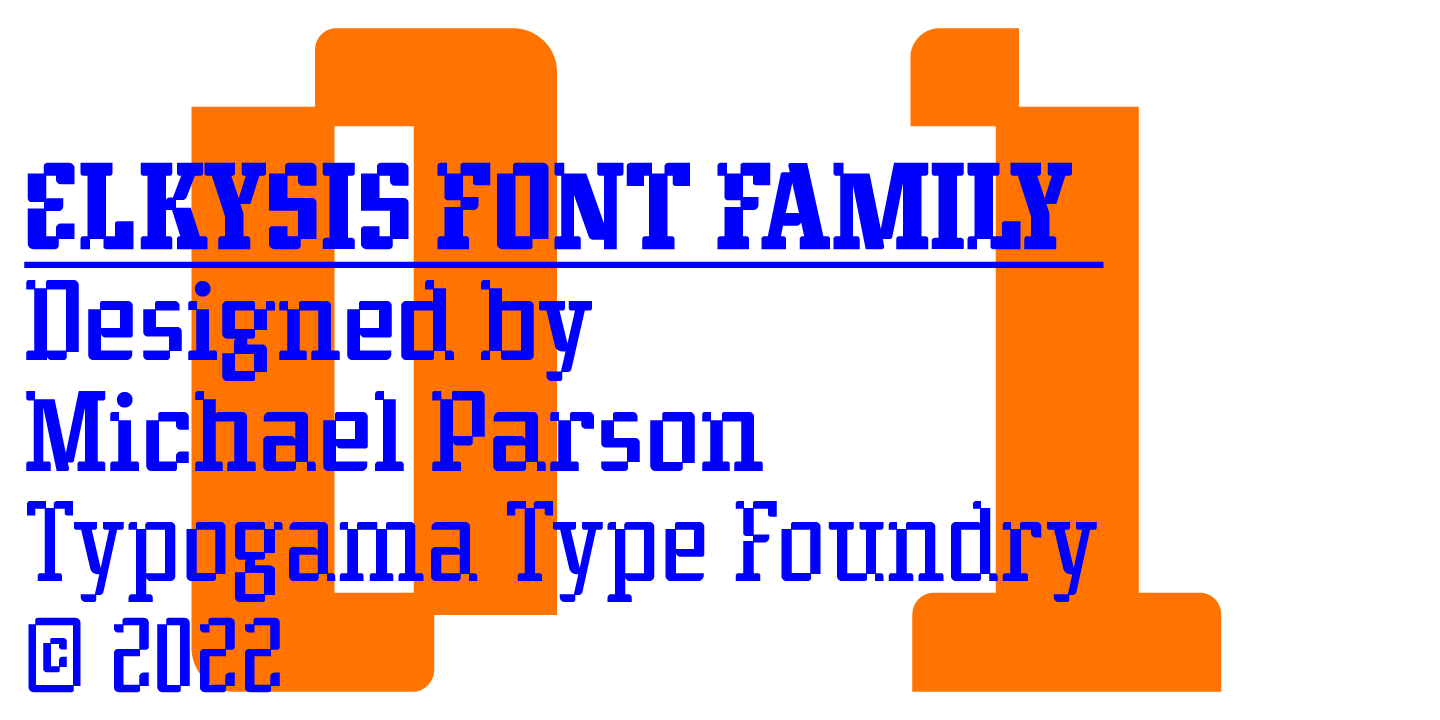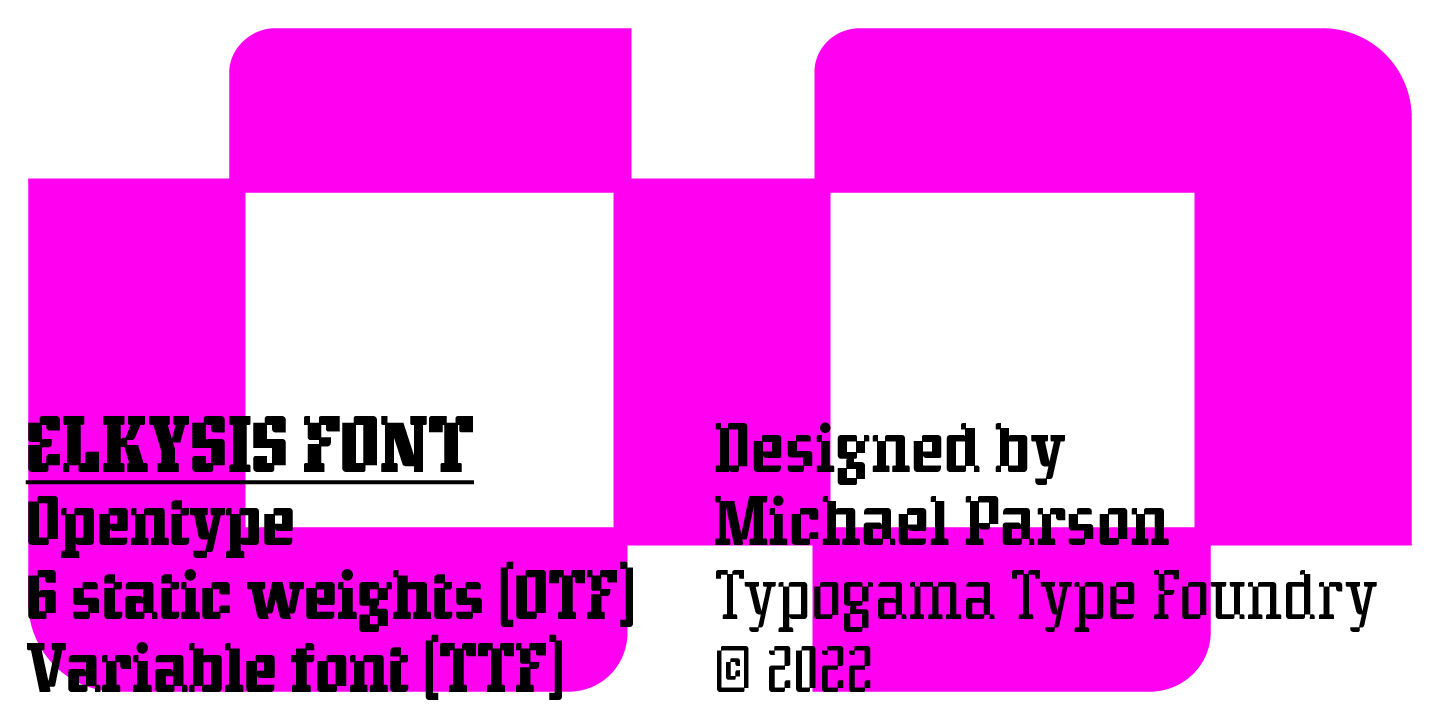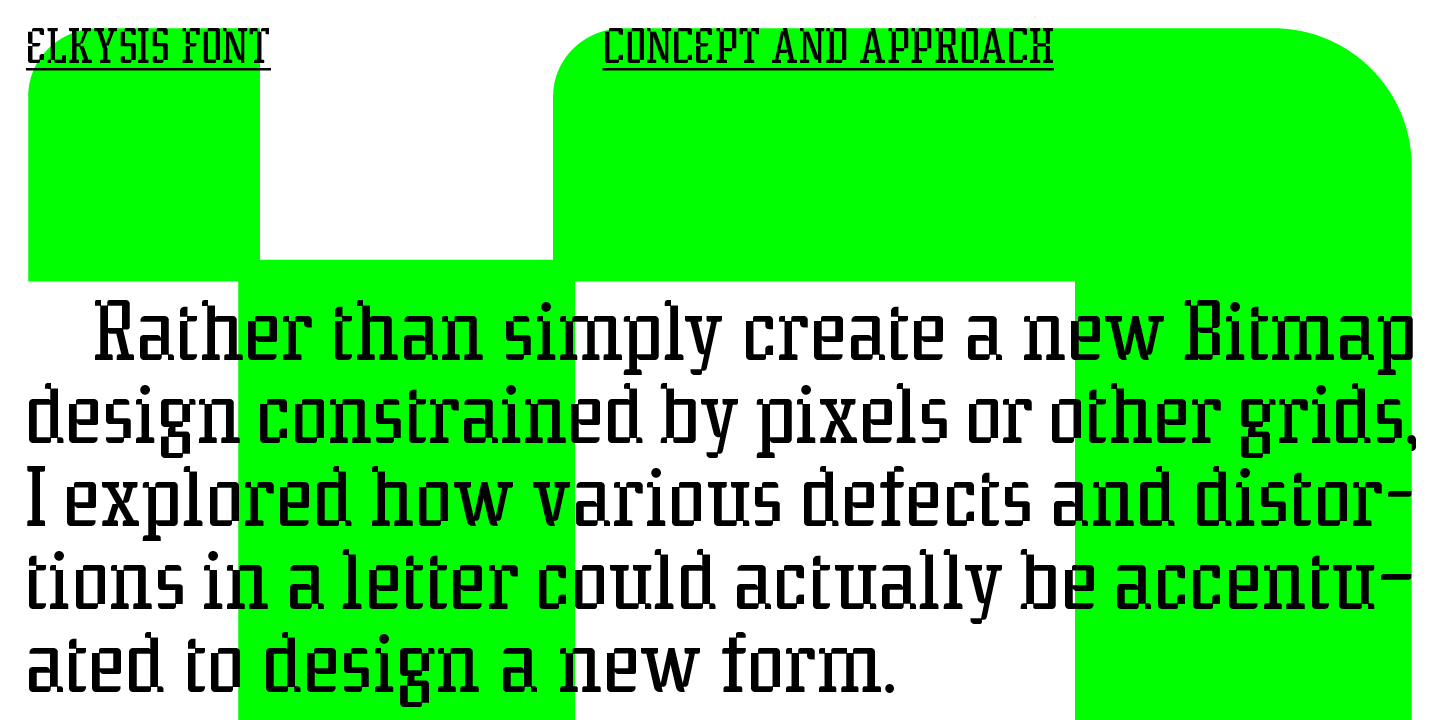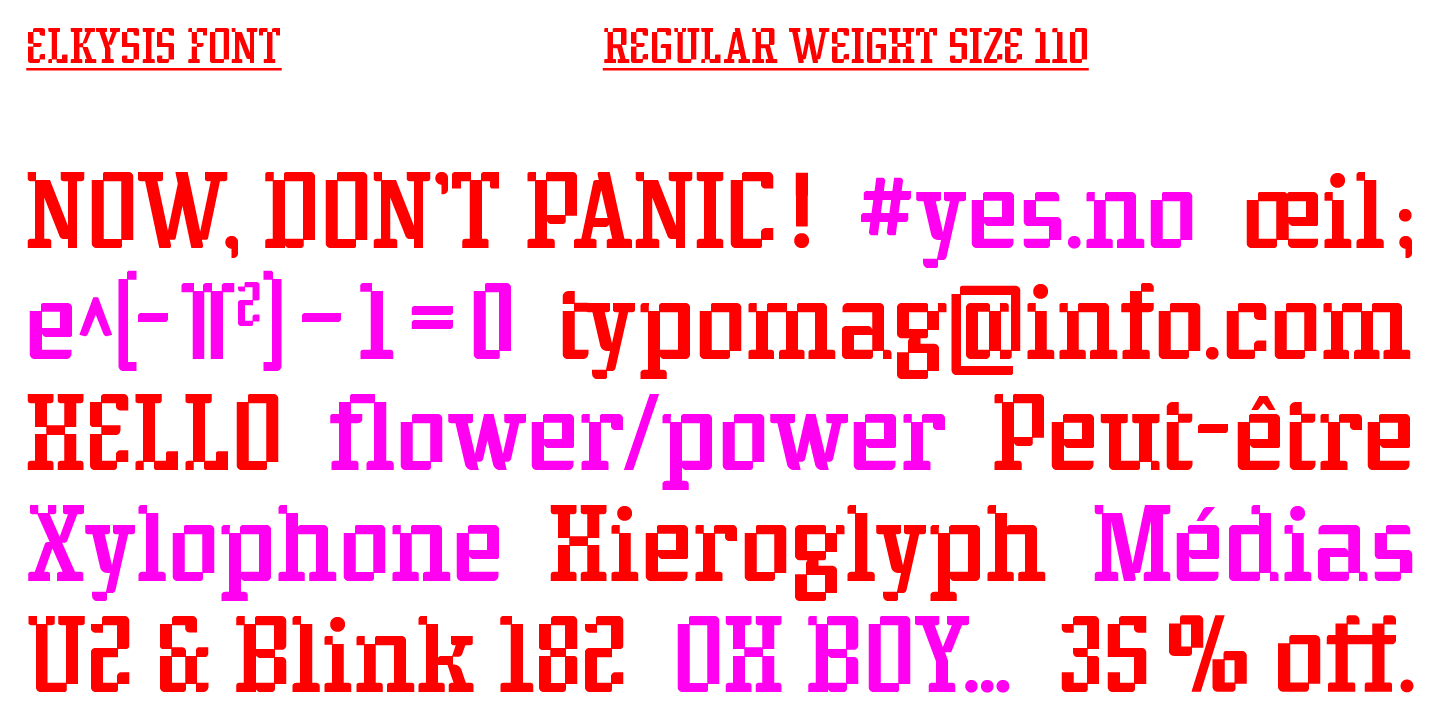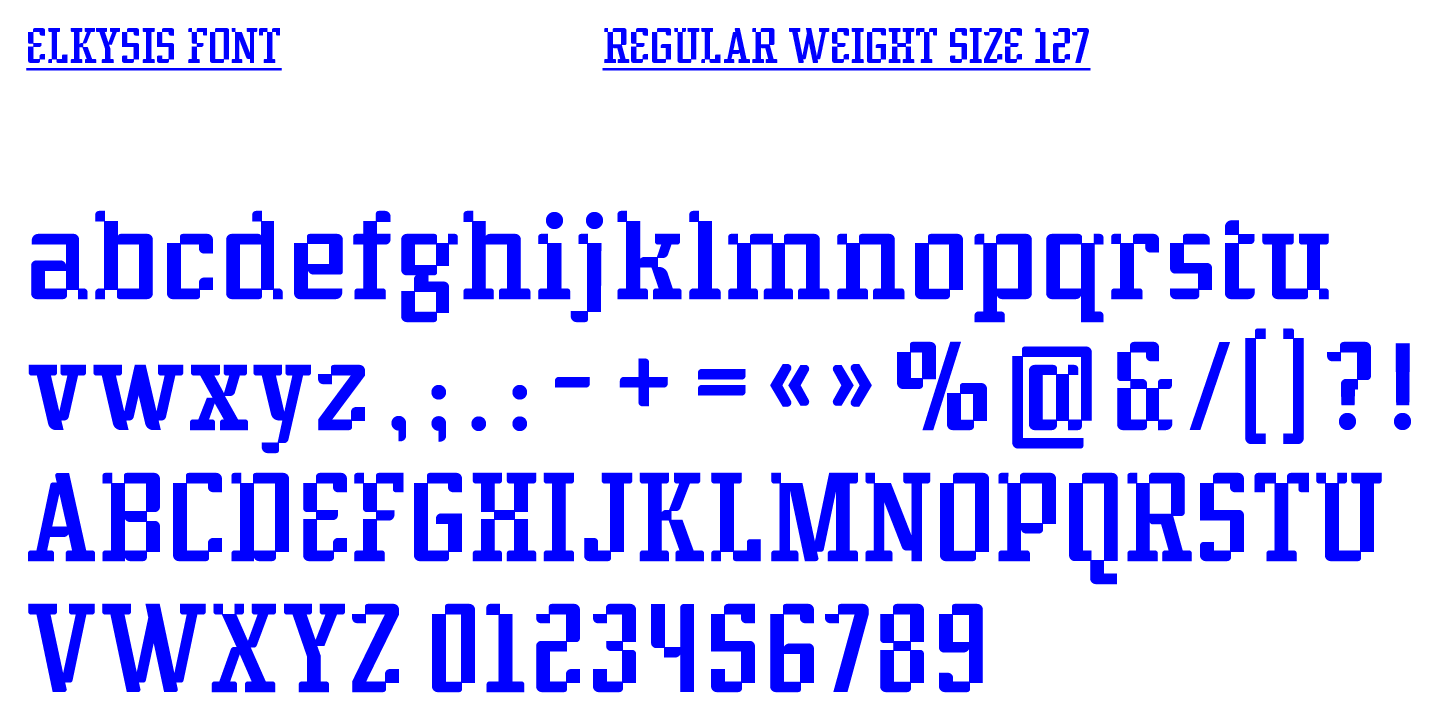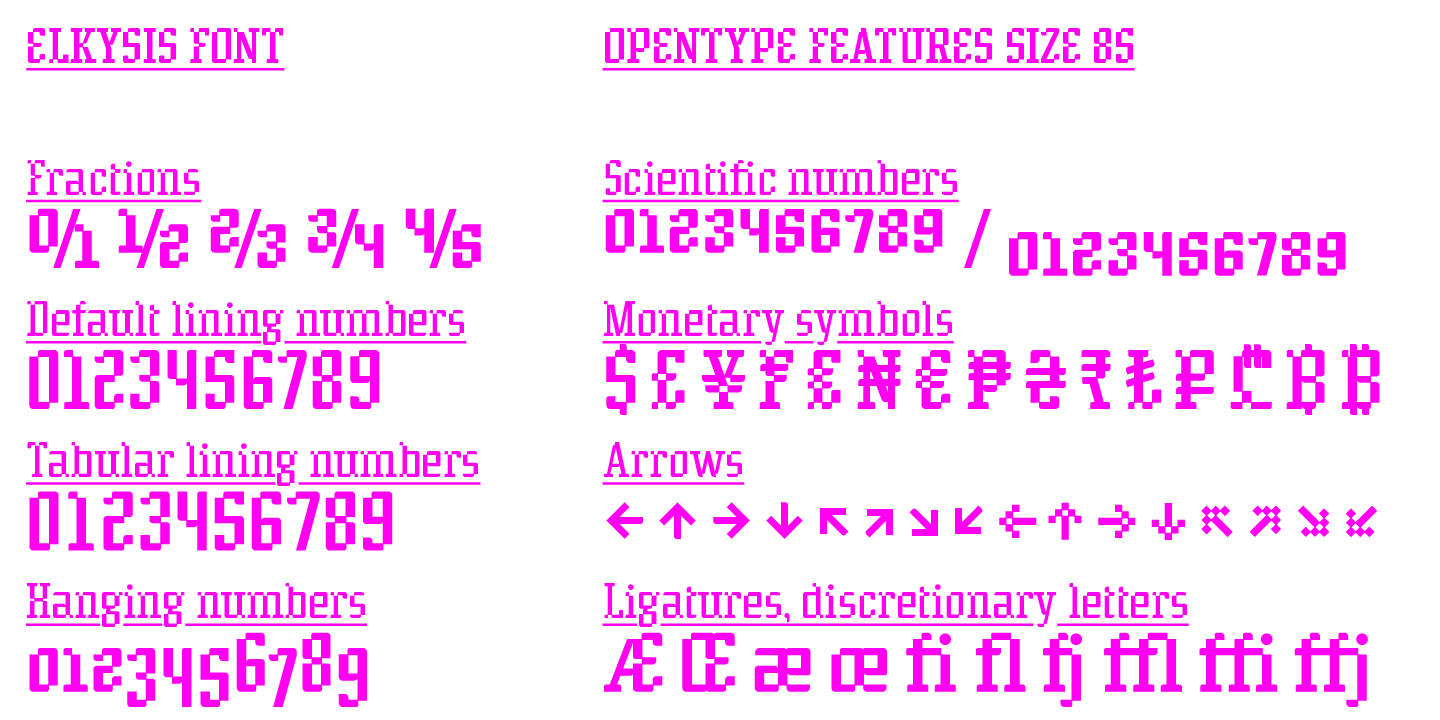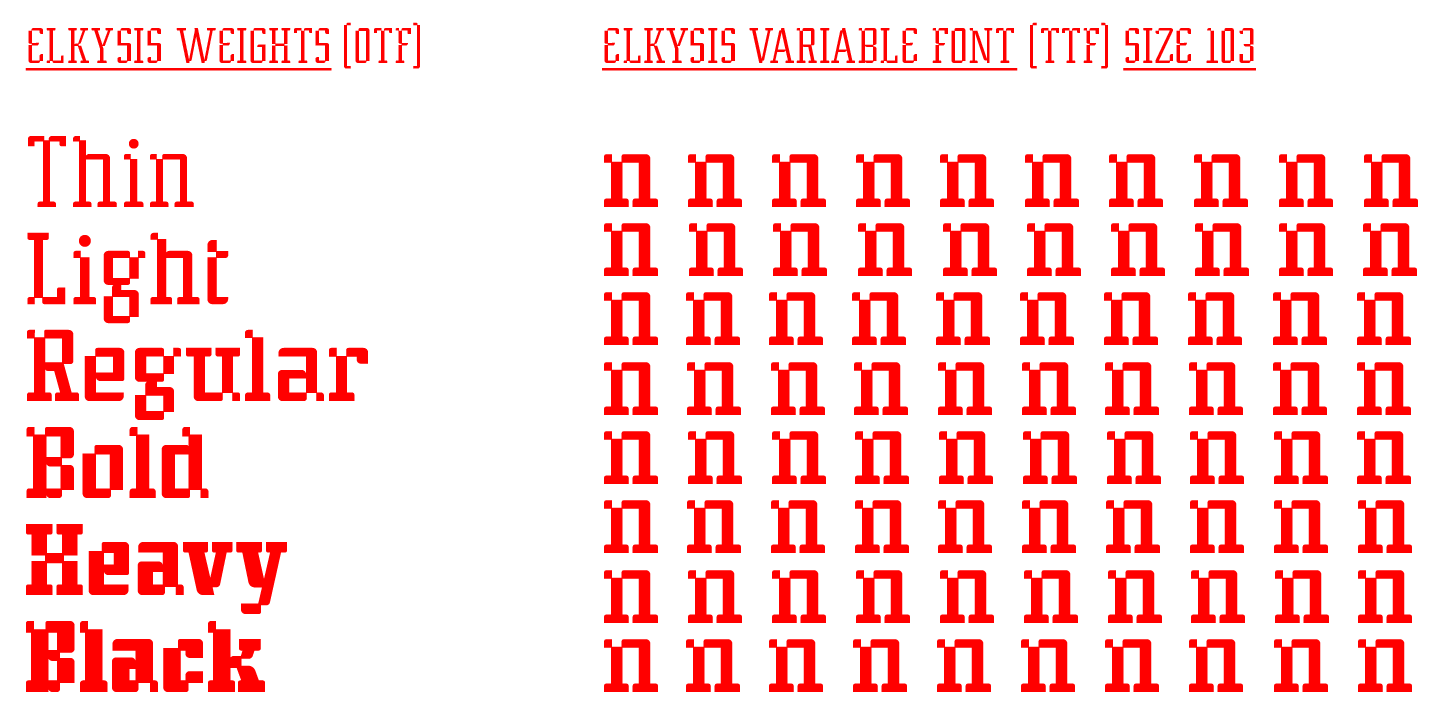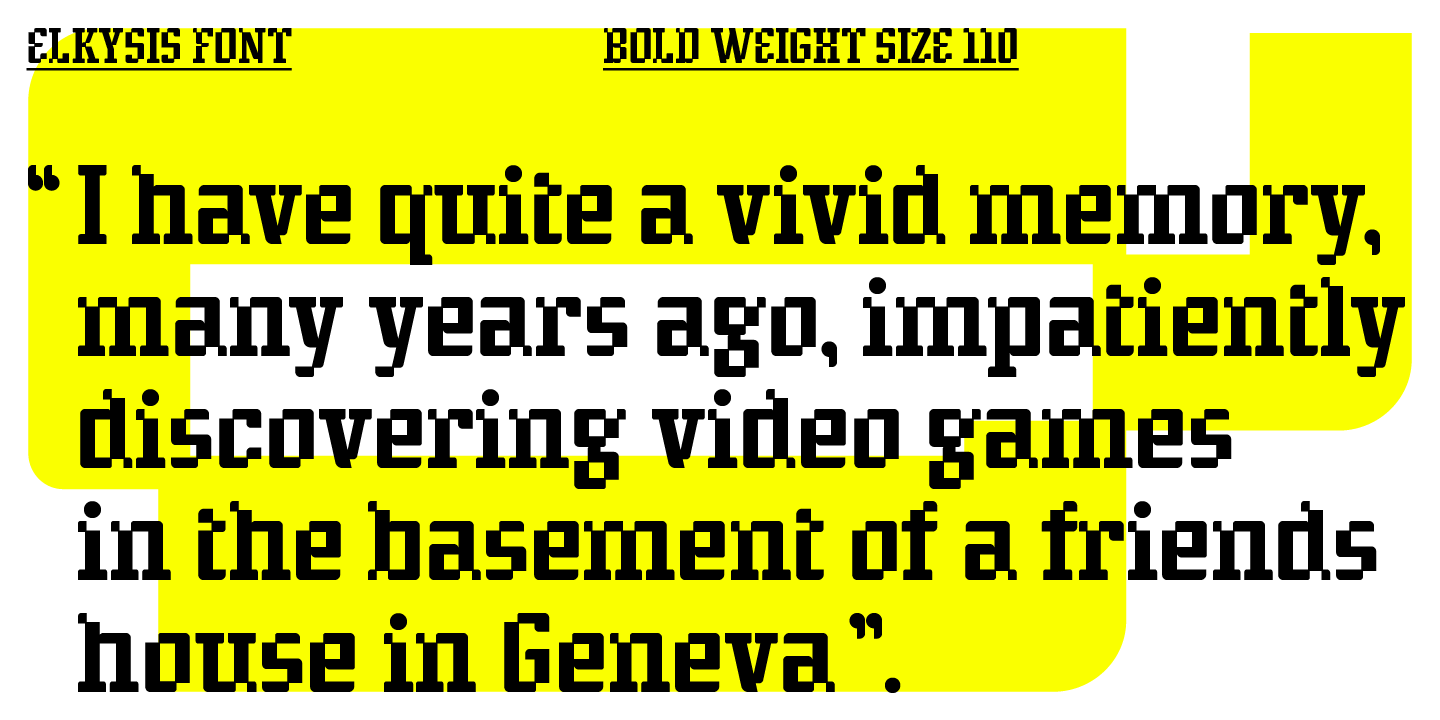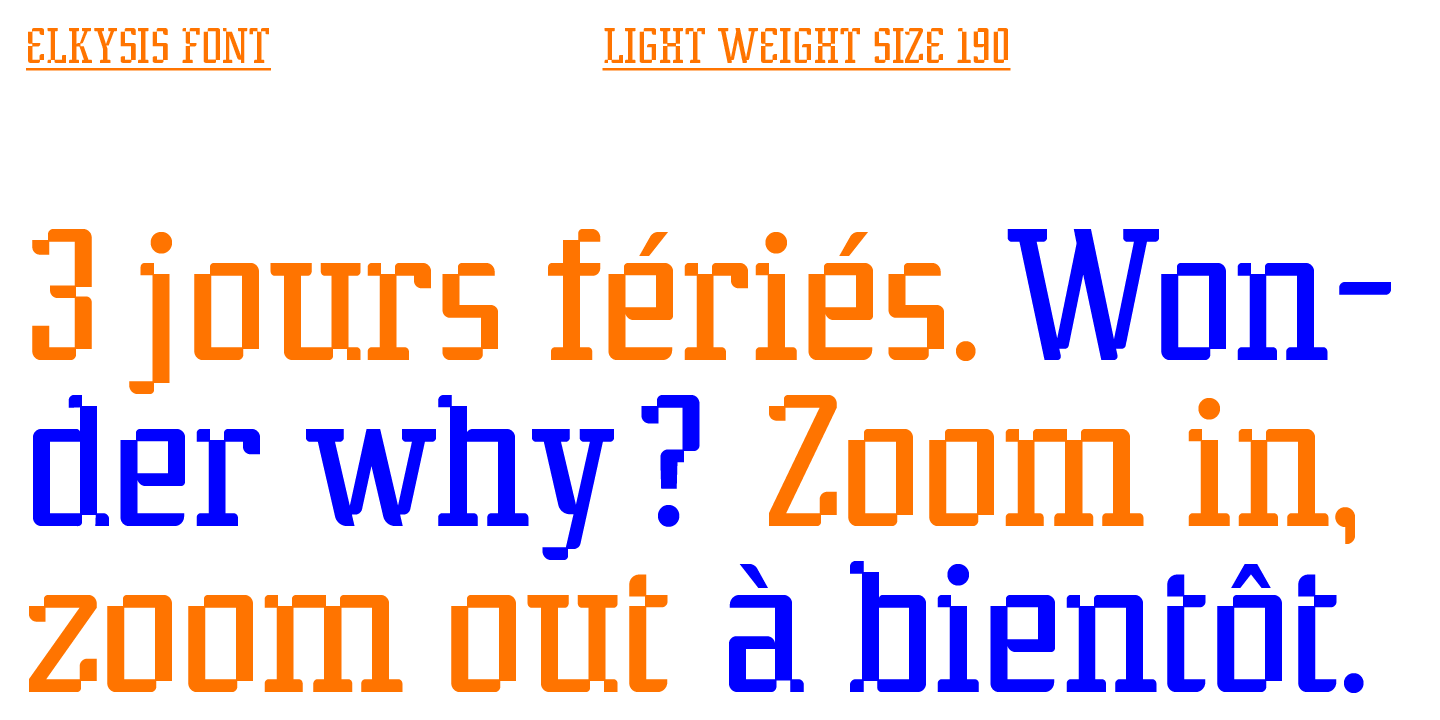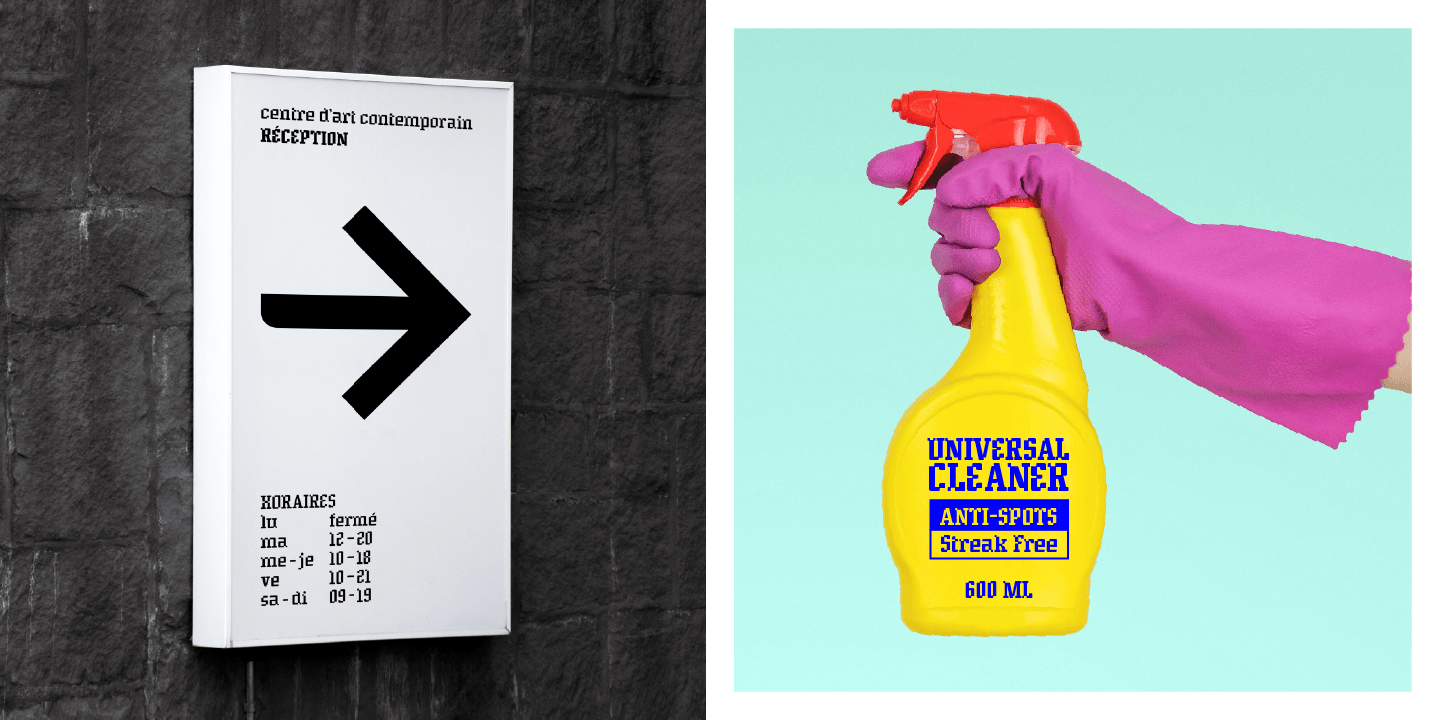
Elkysis Variable
Font Family by Typogama
Elkysis is a striking, contemporary slab serif type family of six weights designed for use in titles, headlines or branding. With a distinctive look, this family aims to provide a unique voice for small passages of text yet remains surprising legible in smaller point sizes. With a full extended latin language support and a Variable family, Elkysis aims to provide a creative and striking solution.